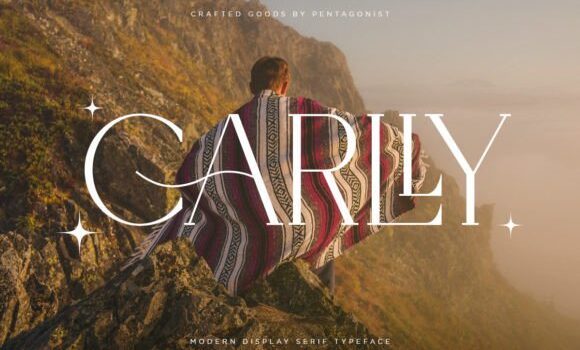
Carlly Font – Free Download Introduction to Carlly Font Carlly is a sophisticated, charming serif font with a fashionable touch. 📸 Preview Gallery 6 images 📌 Product Name Carlly Font 👤 Author Pentagonistudio 📂 Category Explore ⬇️ Download Carlly Font